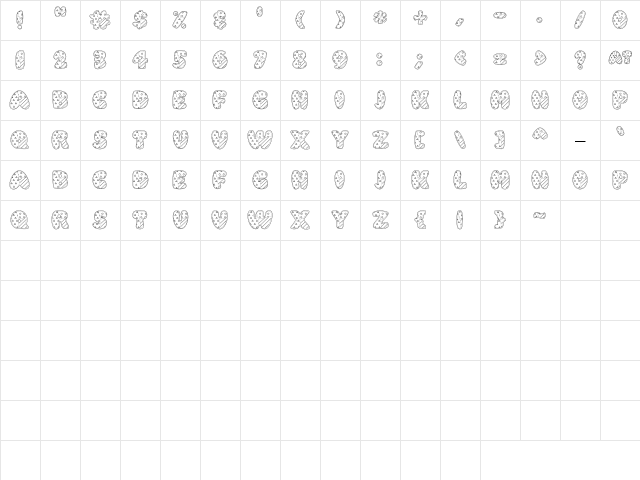
LD Quilt Regular Free Font
LD Quilt Regular
Design Context for LD Quilt
LD Quilt is a composed and adaptable typeface that performs quietly and consistently across a wide range of design contexts.